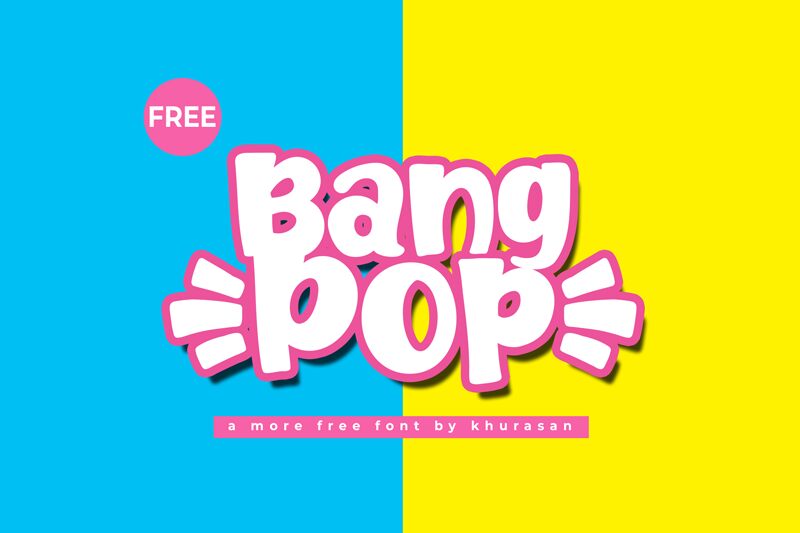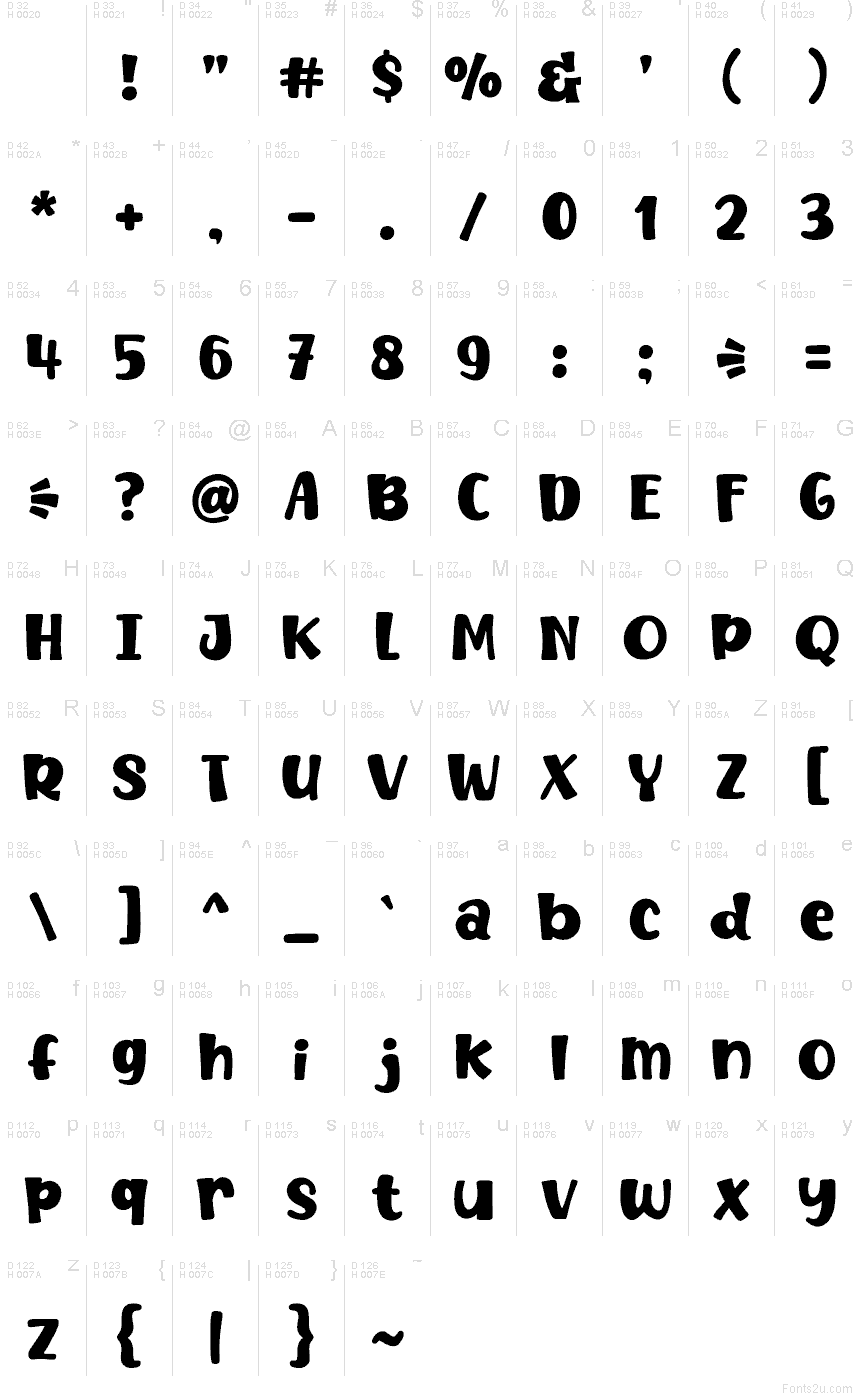
Bangpop
Bangpop font by Khurasan comes in with big, puffy letterforms that feel like bubble gum and comic sound effects—soft edges, tight spacing, and a bouncy rhythm that stays readable even when it’s loud. It’s a free cartoon font; the typeface gives your words instant “POP” without needing extra outlines or effects.
Using Bangpop works beautifully for comic headers, kids’ snack packaging, YouTube thumbnails, sticker designs, playful app screens, party invites, and classroom posters. Set it large for maximum bounce, then pair this free font with a clean sans like Montserrat or Poppins to keep the rest of your layout crisp and calm.